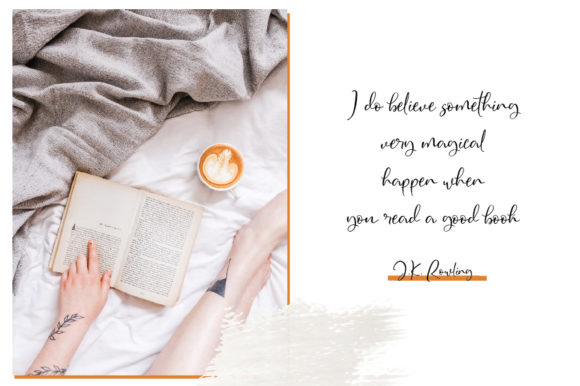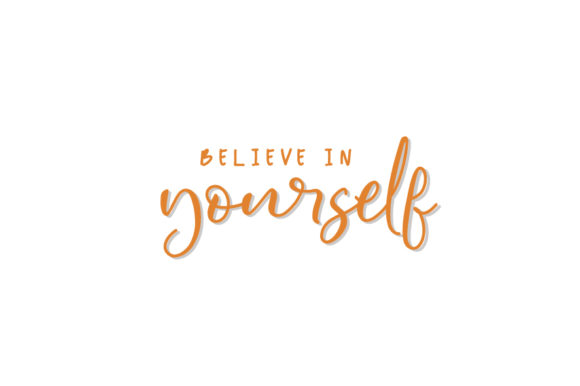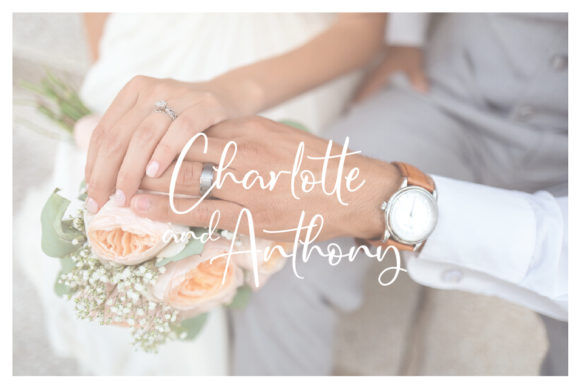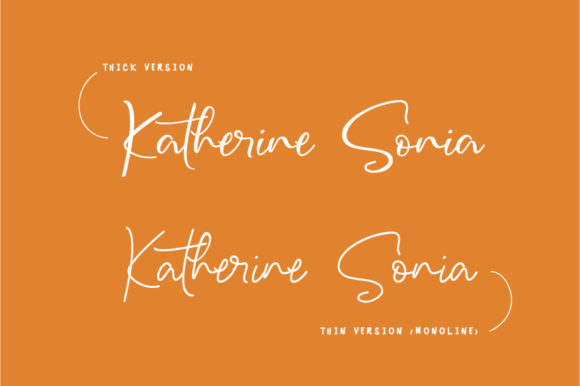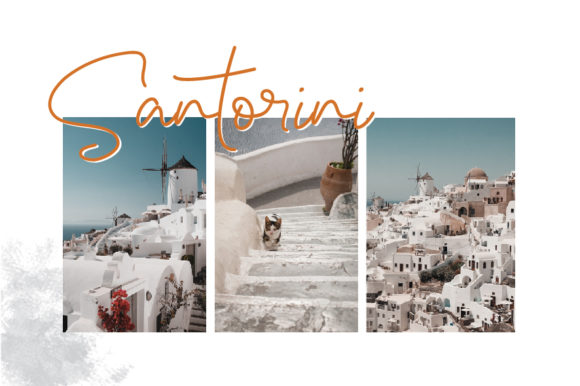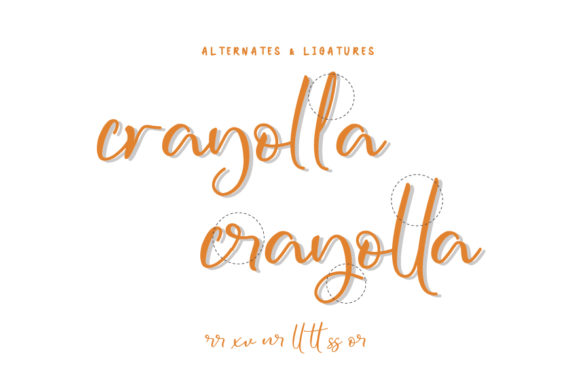
Introduction to Oh Twenty Font
Remember that moment when you stumbled upon the perfect font for your creative project? It’s like finding a missing puzzle piece that elevates your design to the next level. For designers, discovering a high-quality font like Oh Twenty Font can be a game-changer. Its light and charming script makes it a perfect addition to any design, adding a touch of sophistication and elegance.
As a valuable design resource, Oh Twenty Font offers a wide range of possibilities for creative expression. Whether you’re working on a free download project or a paid commission, this font is sure to impress. With its transparent background, it’s easy to layer and blend with other design elements, creating a seamless and cohesive look.
Key Features of Oh Twenty Font
- High-quality design resource ideal for creative projects and digital designs.
- Unique, modern design with a transparent background, allowing for easy layering and customization.
- Perfect for use in logos, typography-based designs, and other creative projects where a modern, clean font is desired.
- Designed to be highly legible, making it an excellent choice for body text and headings.
Honest Review: Oh Twenty Font
As a designer, I’m always on the lookout for high-quality design resources that can elevate my creative projects. The Oh Twenty Font is one such resource that caught my attention, and I’m excited to share my honest review.
- High-quality font design with clean lines and modern aesthetics
- Transparent background, making it easy to use in various design scenarios
- Wide range of font styles and weights to choose from
- Some users may find the font a bit too minimalist, lacking in character
- Not as versatile as some other fonts in terms of font sizes and weights
- May require additional styling to stand out in busy design compositions
Overall, I’m impressed with the Oh Twenty Font. While it may not be the most versatile font out there, its high-quality design and transparent background make it a solid addition to any designer’s toolkit. Whether you’re working on a logo, typography project, or simply need a reliable font for your creative project, the Oh Twenty Font is definitely worth considering.
Here are a few tips for getting the most out of Oh Twenty Font:
- Use the font in combination with other design elements, such as graphics and images, for a more visually appealing design.
- Use the font with a transparent background to create a more subtle look.
Oh Twenty Font is commonly used for:
- Branding and marketing materials, such as logos and business cards.
- Designing websites and web applications.
- Creating social media graphics and posts.
Can I use the Oh Twenty Font with a transparent background?
Yes, the Oh Twenty Font is designed to work well with transparent backgrounds. Since it’s a high-quality font, it will render nicely even when used with a transparent or semi-transparent background in your design project.